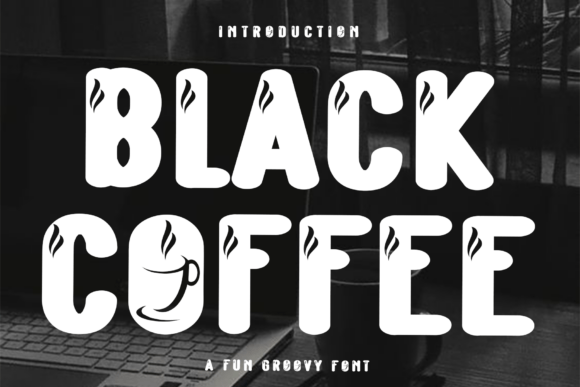
Introducing Black Coffee Font: A Festive and Merry Typeface for the Holiday Season
The holiday season is upon us, and what better way to get into the spirit than with a font that’s as festive and merry as Black Coffee Font? This decorative typeface is designed to capture the magic of the holiday season, with its whimsical flair and enchanting elements. Whether you’re a designer, crafter, or DIY enthusiast, Black Coffee Font is the perfect addition to your typography collection.
A Font that Adds a Touch of Enchantment to Your Designs
Black Coffee Font is more than just a typeface – it’s an experience. With its intricate details and decorative elements, this font adds a touch of whimsy and wonder to your designs. Imagine creating greeting cards, gift tags, and holiday-themed projects that transport your recipients to a winter wonderland of nostalgia and cheer. That’s what Black Coffee Font can do for you.
Black Coffee Font is specifically designed with the holiday season in mind. Its festive and merry vibe makes it perfect for a wide range of projects, including:
• Greeting cards: Create personalized and unique holiday cards that will stand out from the crowd.
• Gift tags: Add a touch of magic to your gifts with custom gift tags that feature Black Coffee Font.
• Holiday-themed projects: From invitations to party decorations, Black Coffee Font is the perfect choice for any holiday-themed project.
One of the best things about Black Coffee Font is that it’s PUA (Private Use Area) encoded. This means that you can access all of the amazing glyphs and ligatures with ease, giving you even more creative freedom to experiment with your designs. With Black Coffee Font, you can:
• Access a wide range of decorative elements, including snowflakes, holly leaves, and festive symbols.
• Create unique and intricate designs with the font’s ligatures and glyphs.
• Save time and effort with easy access to the font’s special characters.
Bringing a Cheerful and Nostalgic Ambiance to Your Words
Black Coffee Font is more than just a font – it’s a way to evoke a sense of nostalgia and cheer in your designs. With its whimsical and festive vibe, this font can help you create designs that feel:
• Cozy and inviting: Perfect for creating a warm and welcoming atmosphere in your designs.
• Playful and fun: Great for adding a touch of whimsy and humor to your projects.
• Nostalgic and sentimental: Ideal for creating designs that feel like a warm hug from the past.
Let Your Typography Shine with Black Coffee Font
In conclusion, Black Coffee Font is a must-have typeface for anyone looking to add a touch of festive cheer to their designs. With its decorative elements, whimsical flair, and PUA encoding, this font is perfect for holiday-themed projects, greeting cards, gift tags, and more. So why not give it a try and see the magic for yourself?